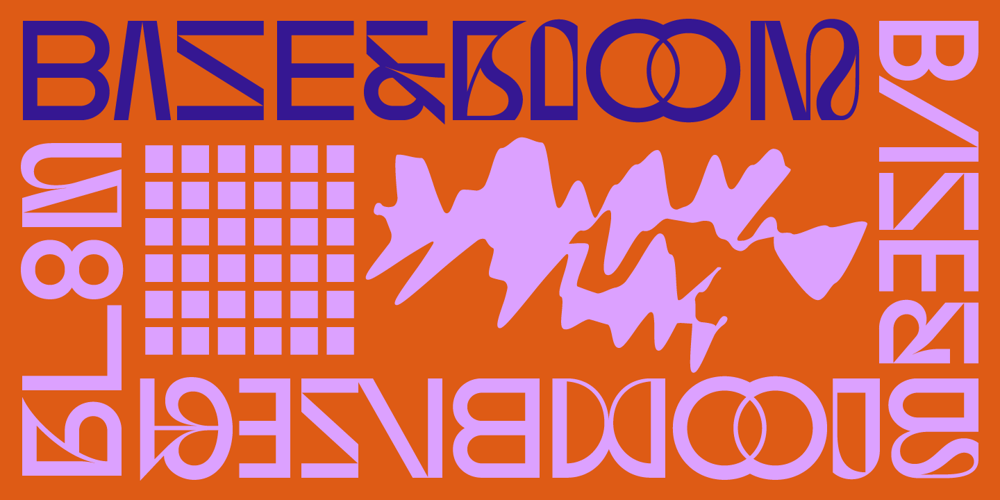
Base&Bloom
Base&Bloom font
Base&Bloom Font Family was designed by Peter Bushuev and published by NaumType. Base&Bloom contains 1 styles and family package options. Base & Bloom is an experimental (but relatively organic) fusion of geometric monoline sans and high-contrast flourish didone. It was inspired by the lack of curious modern display sans as opposed to the uprise of contemporary serifs past couple of years. The idea was to incorporate flourishes not as unnecessary elements like swashes, but as a part of letter structure, which was an especially interesting task considering it was not a serif, which potentially could give more room for that. And after all, the idea pays off by generating many inventive letterform solutions.Base & Bloom has alternates for each letter (up to 11) so you can make endless combinations to find the perfect look.It is a bold choice for posters, album covers, identity and packaging, headlines, oversize typography, and editorial design.